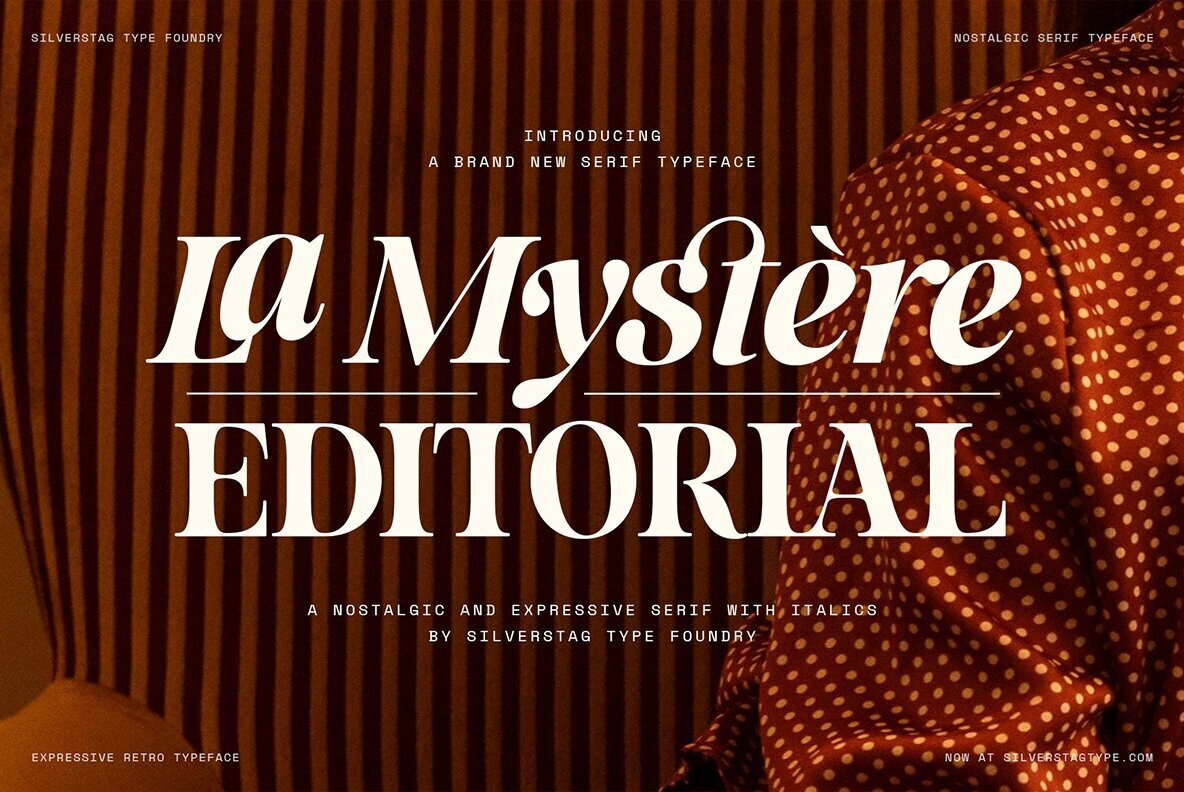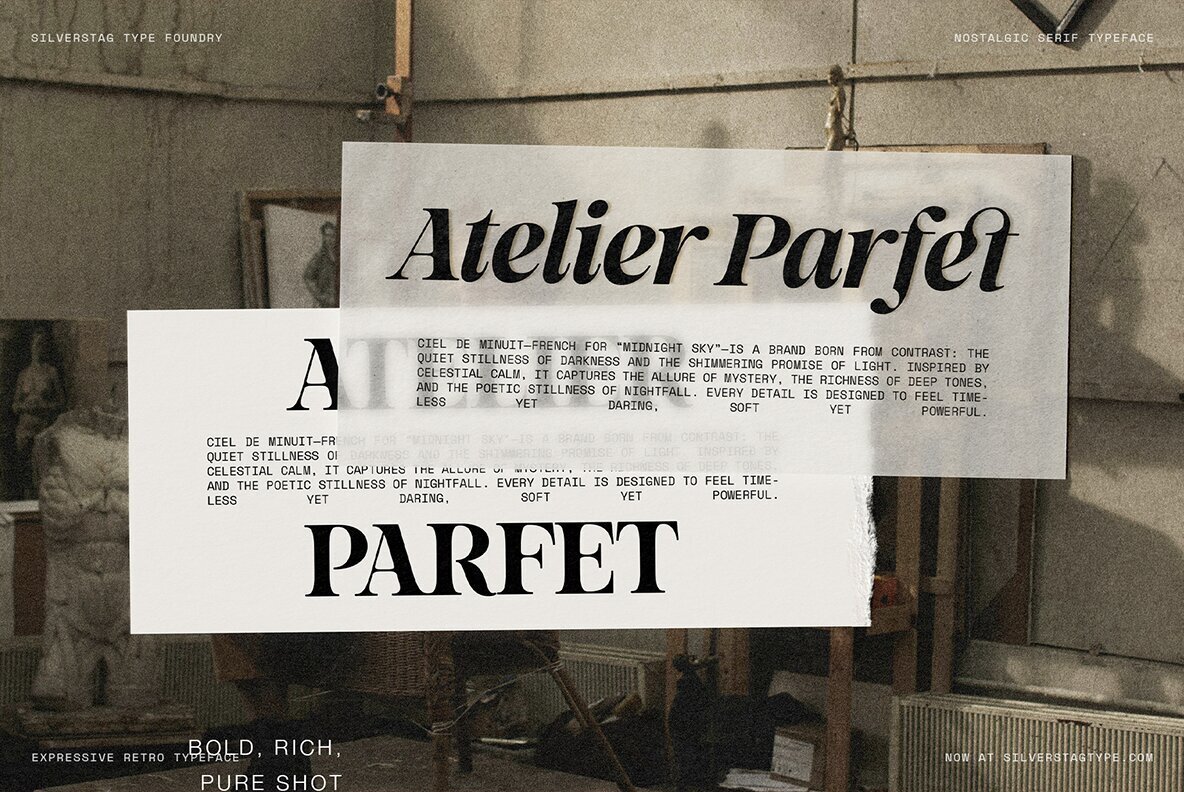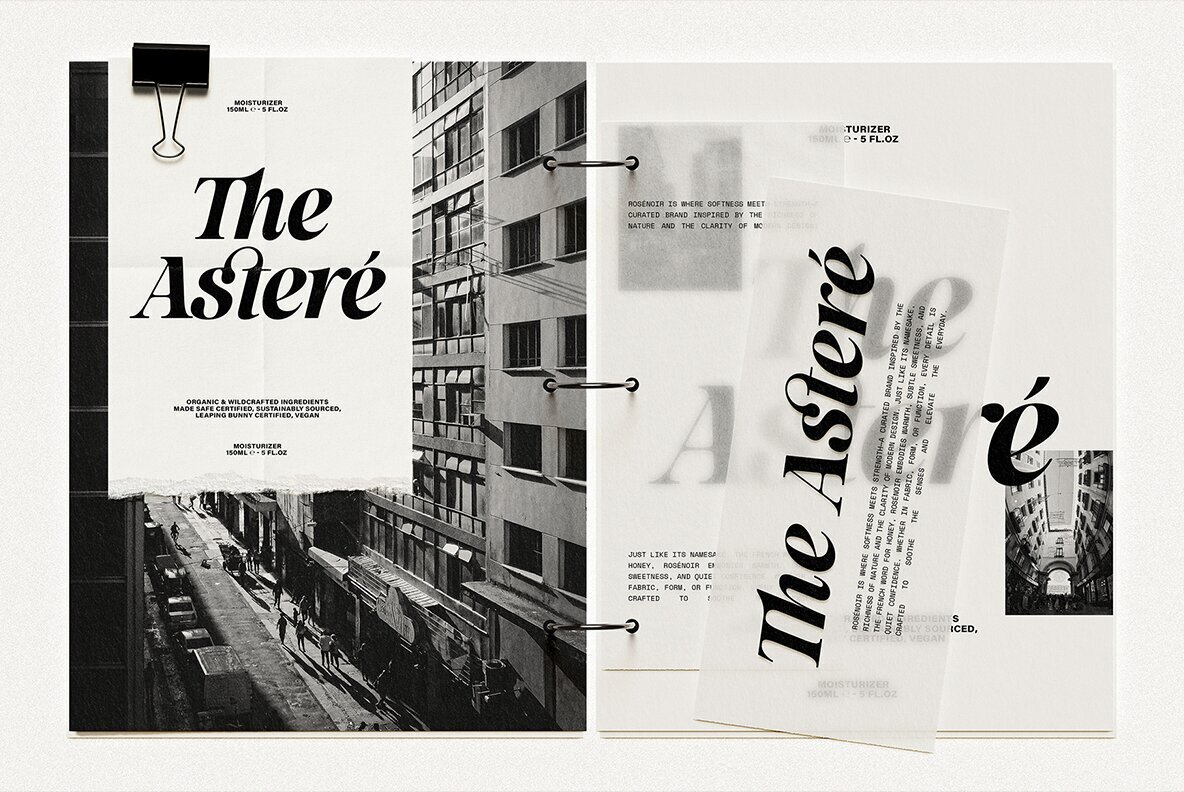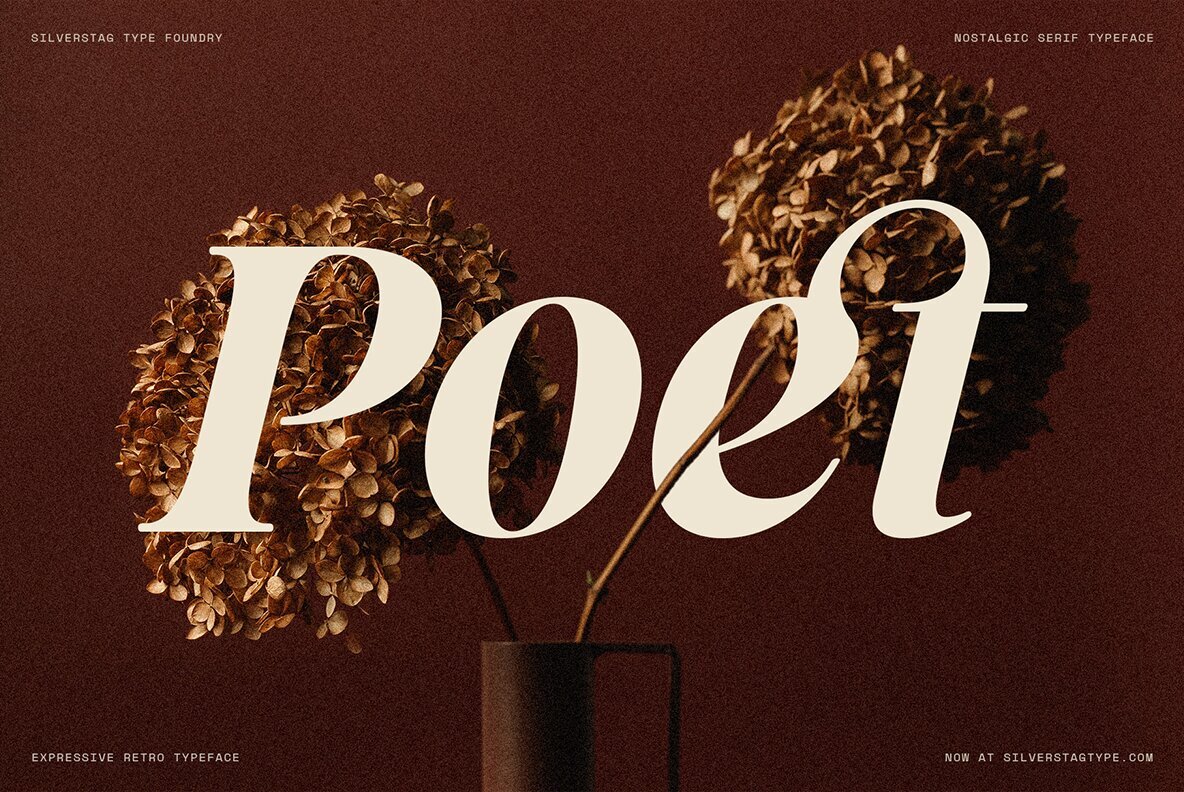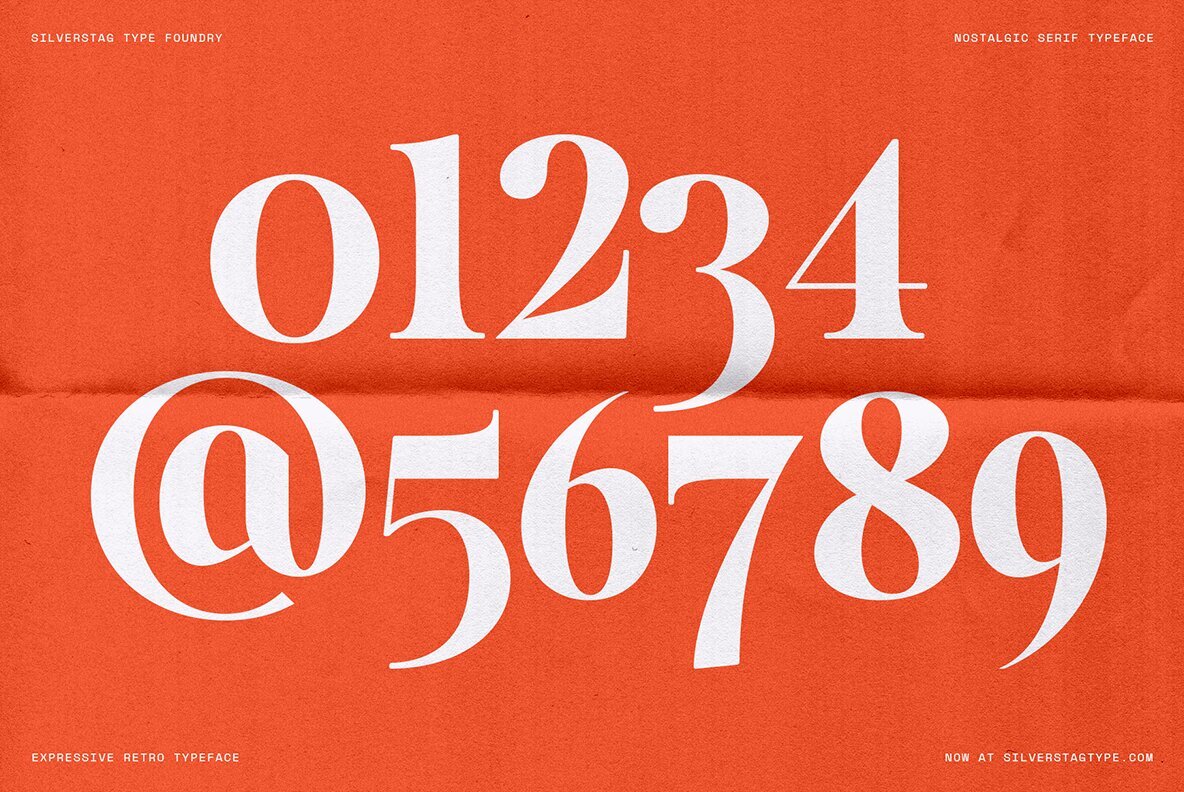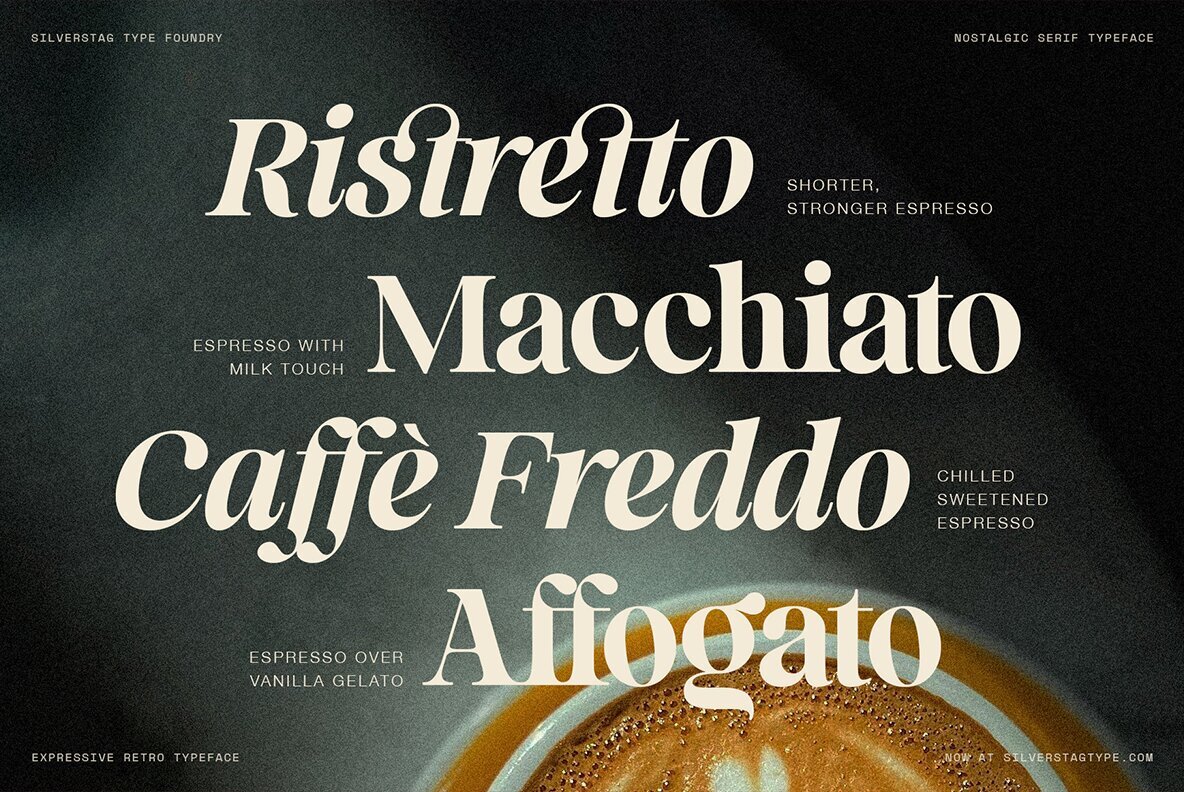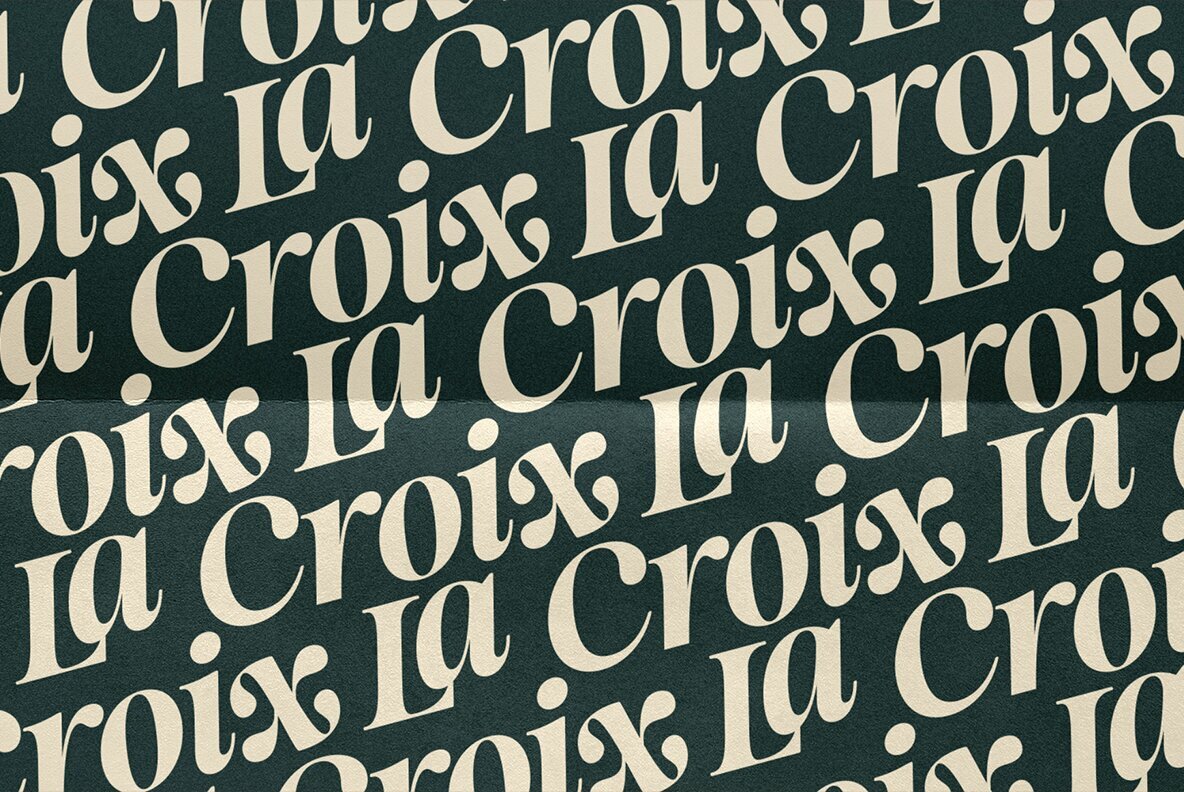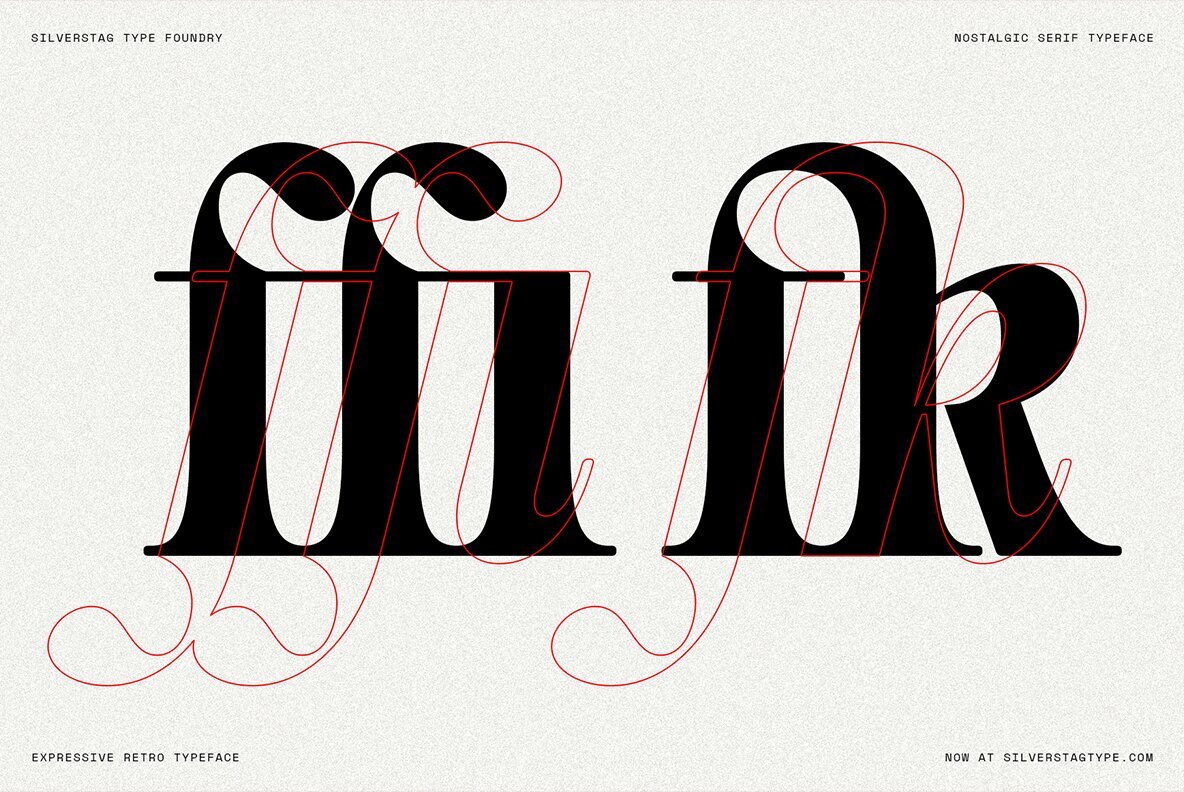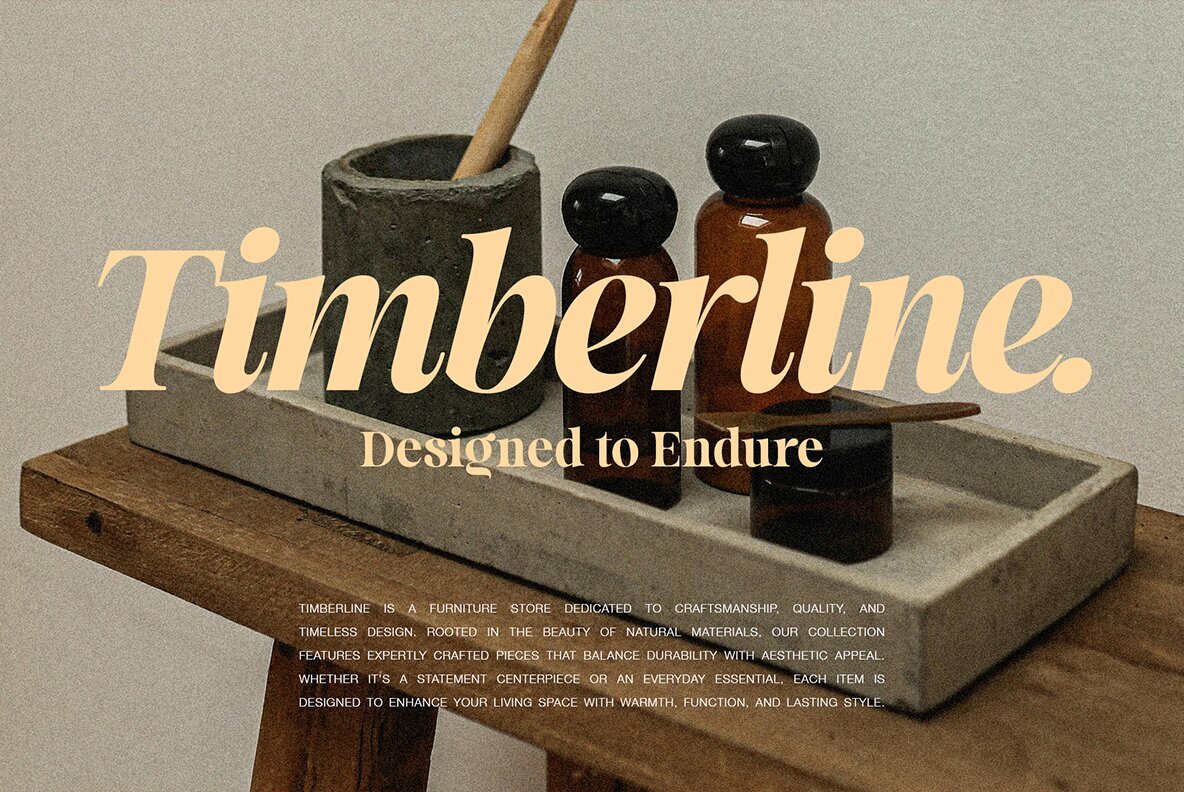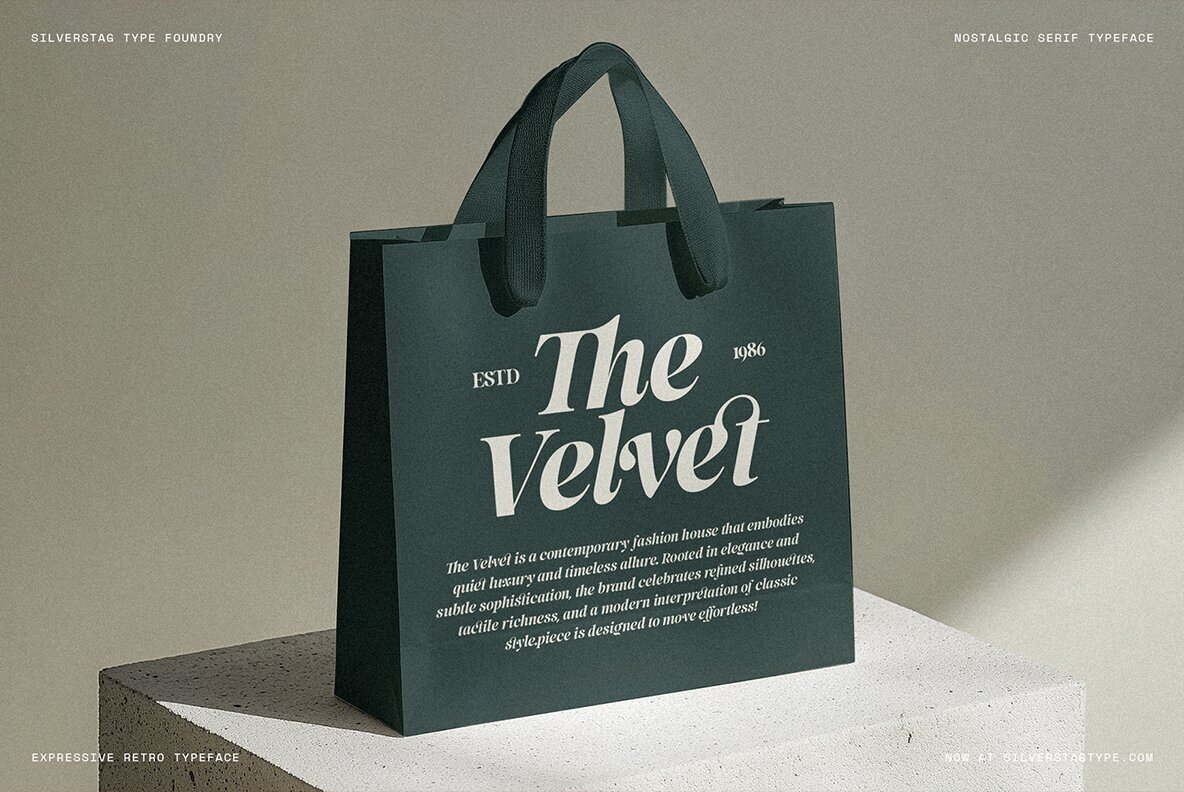
SLTF La Mystere Font
SLTF La Mystère is a serif typeface that gracefully melds bold ambition with delicate sophistication. With expertly crafted curves and meticulously sculpted serifs, this font is designed for those seeking to make a striking editorial statement. Drawing inspiration from the classics while embracing contemporary style, La Mystère provides a harmonious balance that's ideal for high-end design projects. Perfect for magazine layouts, luxury branding, book covers, packaging, and refined social media assets, La Mystère exudes confidence and timeless allure. Its two distinctive variants, Regular and Italic, offer a personalized touch to every project, ensuring that each design resonates with its intended elegance and sophistication. SLTF La Mystère currently offers Version 1.0, with an anticipated update at the end of September introducing 9 weights per style. Early buyers will receive future enhancements at no extra cost. This is a momentous opportunity to incorporate the graceful sophistication of La Mystère into your repertoire.SLTF La Mystère: The Serif Font With Modern Elegance